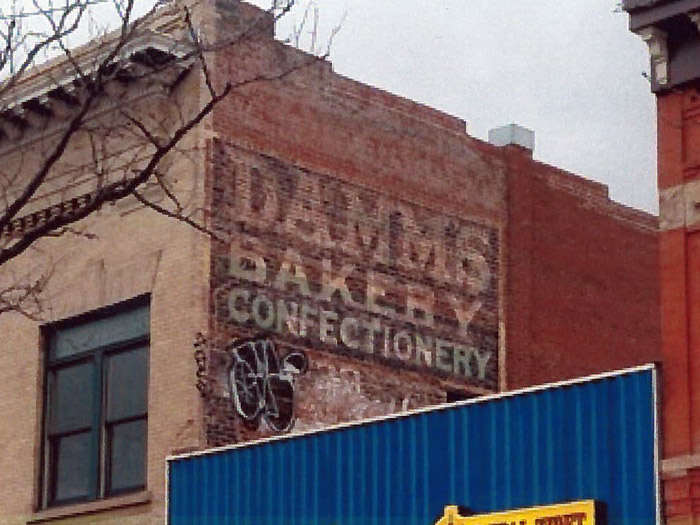
Graffiti on Historic Ghost Sign
I just received a phone call from the Fort Collins Historic Preservation planner informing me that a ghost sign had been tagged. She emailed this rough photo of the vandalism.
Graffiti on ghost sign
Her question was if I know how to remove this without damaging the sign underneath. I have an over-the-counter graffiti-removing product which might work. Immediate power-washing is often the solution on a regular surface but on an old building with a ghost sign I think it would cause the brick underneath to crumble and remove the fading paint.
the sign was likely painted in the 1930's by Stewart Case. I had taken a photo a couple of years ago of the sign before any graffiti, which you can see here: http://www.pinterest.com/pin/397724210811956516/
Tell 'em to just leave it....its a sign of the times....
it too can become a ghost sign in a hundred years....
Guess I'm amazed that anyone really cares about that old sign...
other than us sign painters...
If the tagging is not too old. You may try this on a small portion.
Take clean paper(the most soft and absorbent the better, try paper towels or paper shop towels) Try two types of thinner since we don't know which spray paint the little "...." used.
If it is still fresh Naptha may work. If older or a stronger paint try lacquer thinner.
Place the paper over the tag, and moisten a clean rag with the thinner. Do a test of these thinners by blotting the thinner onto the paper until it makes the tag appear and see if the spray paint transfers into the paper.
Using this method should allow you two wake up the recent paint without smearing the tag deeper into the ghost sign. You don't want to do any rubbing directly on the ghost paint. If most of the tag can be lifted using the paper and you know which solvent worked, you can probably dab a clean rag with solvent directly on the old sign to lift any tag residue. The whole goal is not to disturb or abrade the original ghost paint or saturate it with thinner.
Pat - you've made some good observations here (with your empirical habits) which would prevent me from making the problem worse. Not exactly what I want to be doing but I do have an interest in preserving what I can.
I'm with Pat but I think your going to need to start with Lacquer thiner or Acetone. I would try brushing a very small amount on the paint getting it wet enough to lift to Graffitti up off the wall. It should come up in peels.
Seeing as how it's not directly over the ghost sign you should just be able to power wash over it with a baking soda and water mix. They've been using it Chicago for decades.
After looking at the Pinterest before photo it looks like the bottom of the sign has been graffittied and cleaned up before. I might suggest repainting a new ghost sign on the bottom for them. I know just the guy to help you.
2 cents from a "vandal" (i do legal stuff, period):
Having many years experience with graffiti and spray i can say most paints sold today used for graffiti are specialist graffiti paints, almost every single maker uses some sort of acetone solvent for their sprays, unless they have used what the kids today call "tar-cans" to do the black fill in, wich is bitumen based, semi abrasive and can with a single spray become a 2 mm thick layer. It smells like tar and fades toward sepia brown tones.
That stuff eats into the surface and leaves this brown-ish mess after surface cleaning, soluble with turpentine.
From the contrast it looks like a non-tar black, wich should be easy to remove, it should fade to grey or blue-ish. If its the tar thing, i'd let it sit and become part of the layering and ever changing visual landscape of the city :)
I'd say get up there and try different solvents in small patches with cotton wool on a stick in the q-tip fashion, test on both colours and overlap and the ghost of course just to see how it reacts.
Pats method seems wise, maybe the peeling Roderick mentioned seems likely as well!
Power Wash with Baking Soda usually does it, Although it leaves the brick area cleaner than the surrounding unwashed bricks.
Be sure to mask over the ghost sign so that you don't accidentally clean that area off.